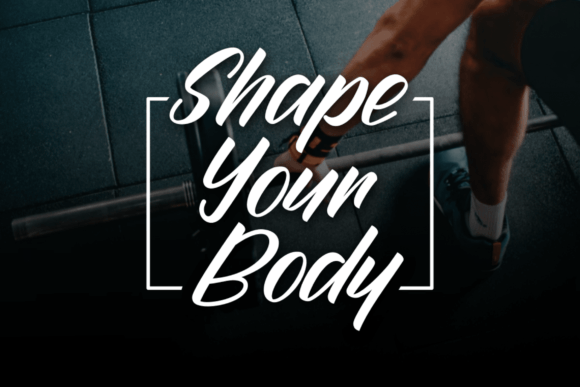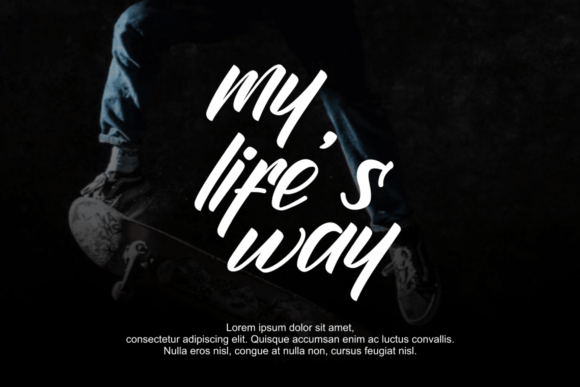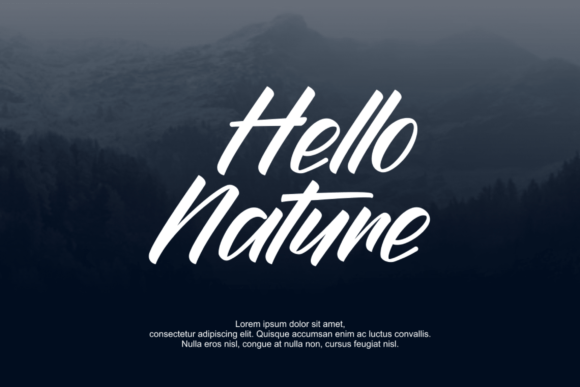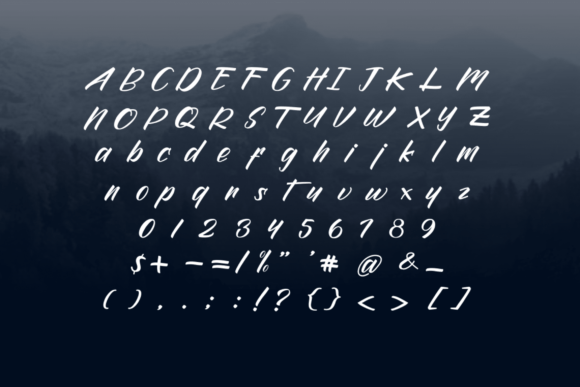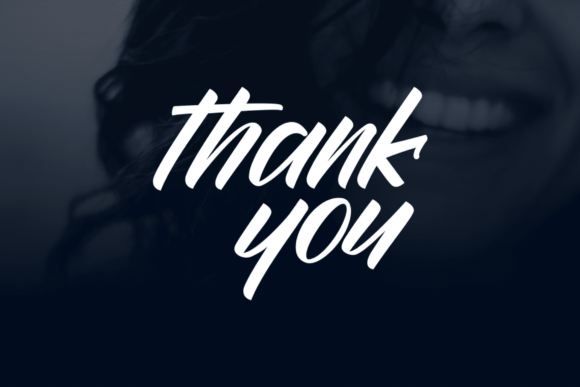
Raquic Quthop Font
About Raquic Quthop Font
Raquic Quthop is a striking and genuine handwritten font, renowned for its bold and impactful presence. This versatile font is well-suited for a wide array of branding projects, encompassing logo design, t-shirt printing, export materials, and various other creative endeavors. With its bold and authentic style, Raquic Quthop is designed to make a powerful visual statement and excel across diverse contexts.
Key Strengths
The font’s key strength resides in its bold and authentic handwritten appearance. It exudes confidence and genuine character. Therefore, it is particularly suitable for projects aiming to establish a strong and memorable visual identity. In logo design, Raquic Quthop offers a commanding and eye-catching choice. Its bold look aids in crafting logos that are not only visually impactful but also convey trustworthiness.
T-Shirt Designs
For t-shirt designs, Raquic Quthop’s boldness demands attention and makes a resounding statement. It is perfect for conveying powerful messages or designs that resonate with a bold audience. Moreover, its unique style ensures that your t-shirts stand out in any setting.
Export Projects
In export projects, Raquic Quthop’s authenticity and robustness help establish a solid connection with customers. Whether you’re working on product labels, packaging, or promotional materials, this font instills a sense of authority and genuine appeal into your export endeavors.
Versatility in Design
The versatility of Raquic Quthop allows it to shine in a wide range of contexts. Its bold presence guarantees that it stands out and leaves a lasting impact. This makes it a valuable asset for numerous creative projects. Additionally, designers can use it for digital media or print materials without losing its striking effect.
In summary, Raquic Quthop is more than just a font; it’s a dynamic design tool that combines boldness with authenticity. Its powerful handwritten style makes it a top choice for branding projects, t-shirt designs, exports, and beyond. Embrace Raquic Quthop, and witness how it elevates your creative work with its bold and genuine character.